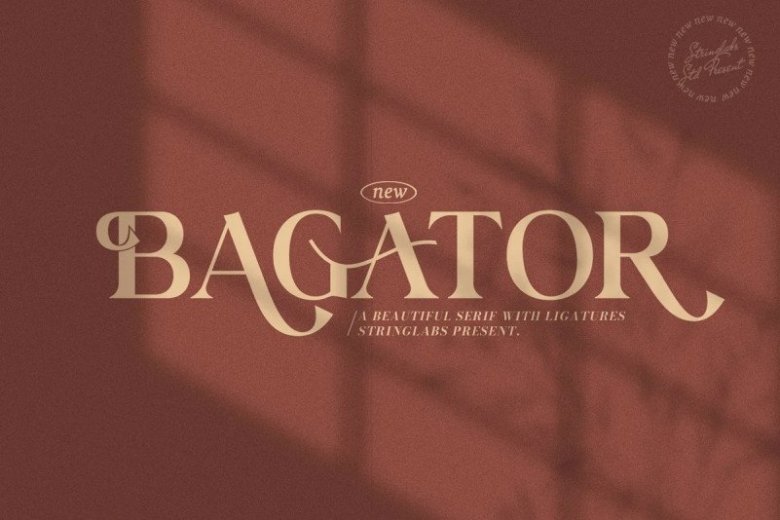
Bagator Font
Bagator Serif Font – a unique, clean serif with a retro, humanist and elegant touch. Made from font designer named StringLabs. It can easily be matched to an incredibly large set of projects, so add it to your creative ideas and notice how it makes them stand out!